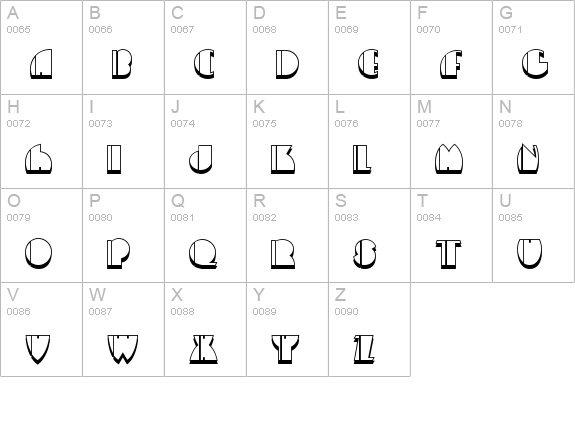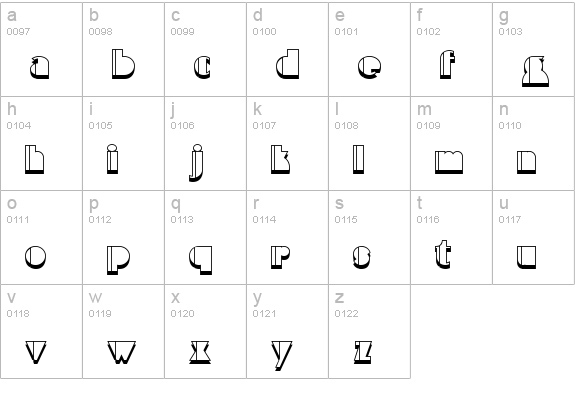
High Five Jive NF font is a fun and lively typeface that exudes energy and playfulness. With its bold and dynamic letterforms, this font is perfect for adding a touch of excitement to any project. The whimsical design of High Five Jive NF font makes it ideal for a variety of creative uses, from posters and banners to social media graphics and branding materials. Moreover, High Five Jive NF font is available for free download at FontsMarket.com. This means that you can easily access this charming font without any cost, making it a great option for designers and creatives looking to add a unique and vibrant touch to their work. Don't miss out on the opportunity to enhance your designs with the free High Five Jive NF font from FontsMarket.com!